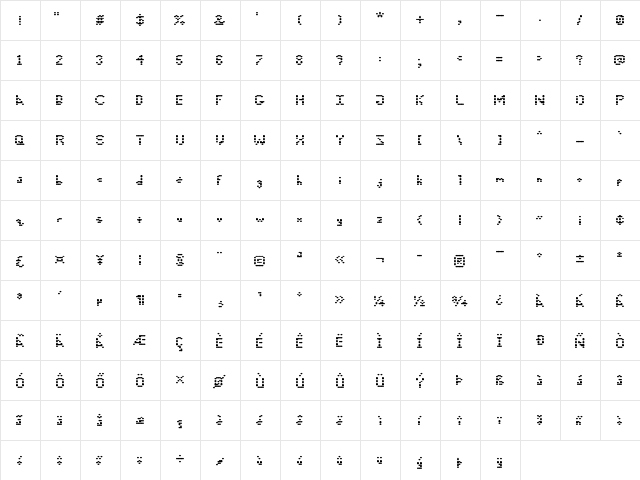
5 Cent Game Regular
| Designer | Sidneys1 |
Design Context for 5 Cent Game Typeface
5 Cent Game is a composed and adaptable typeface that performs quietly and consistently across a wide range of design contexts.